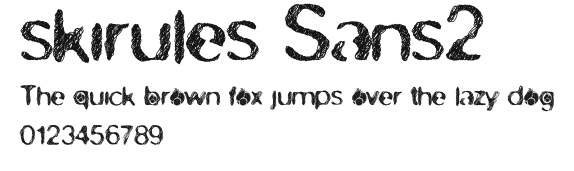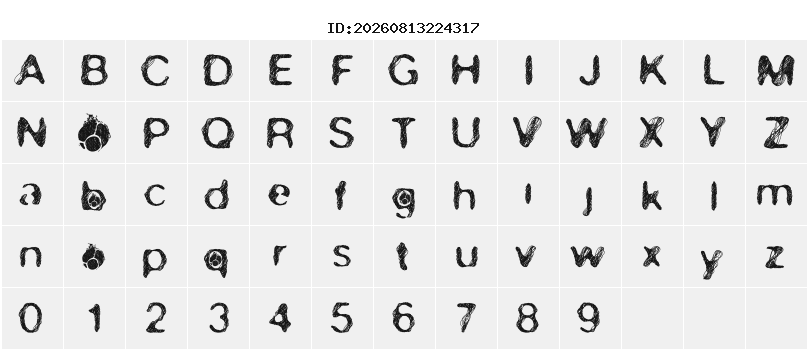
• Font Name: skirules-Sans2
• Font Style: Expanded Medium
• Font ID: loosy(fabianpfeifhofer): skirules-Sans Expanded Medium: 2007
• Full Font Name: skirules-Sans2 Expanded Medium
• PostScript Name: skirules-Sans2-ExpandedMedium
• Designer: loosy (fabian pfeifhofer)
• Manufacturer: loosy (fabian pfeifhofer)
About skirules-Sans2.ttf
skirules-Sans2.ttf is a modern, elegant sans-serif font designed for ultimate readability and visual harmony. Perfect for branding, headlines, web design, and print materials.